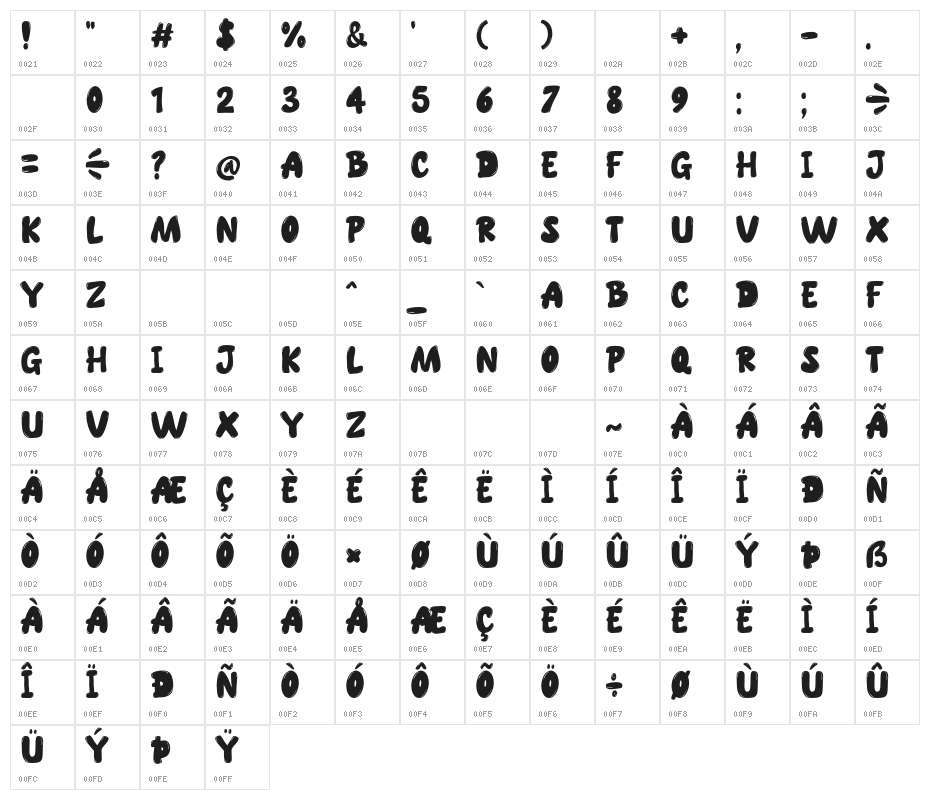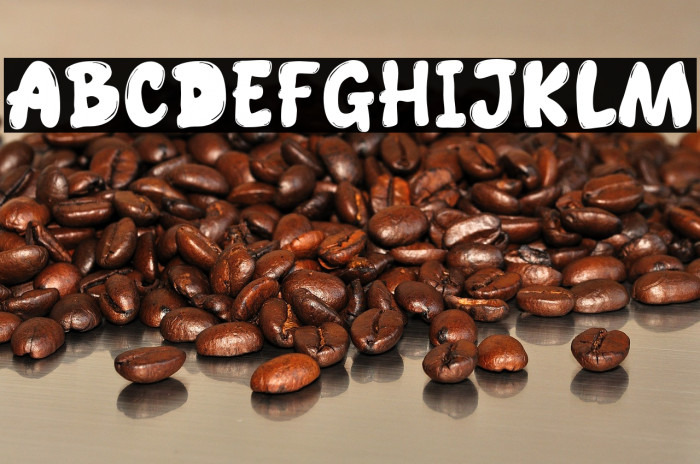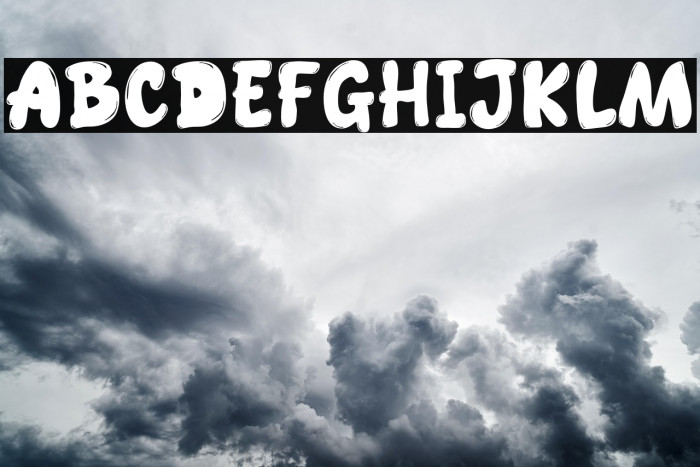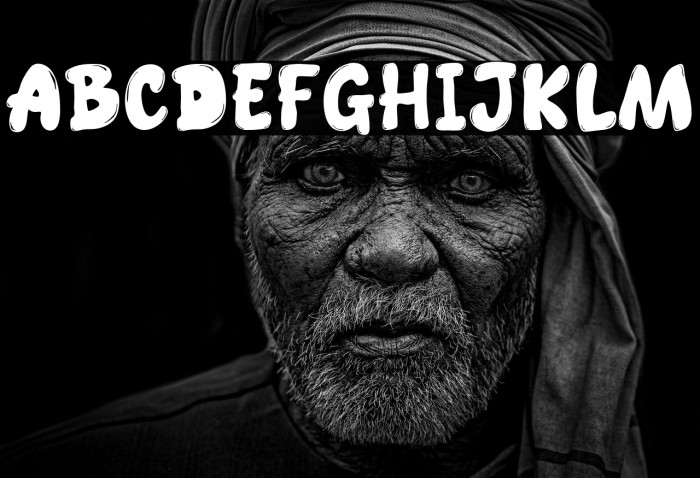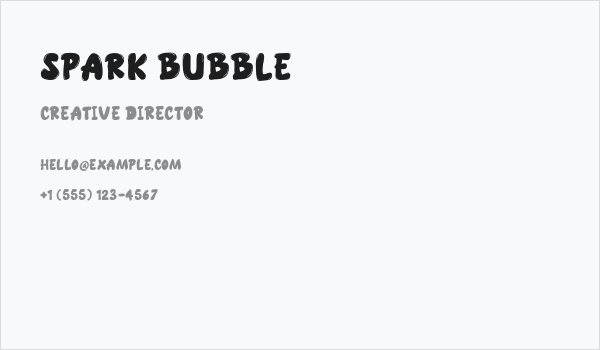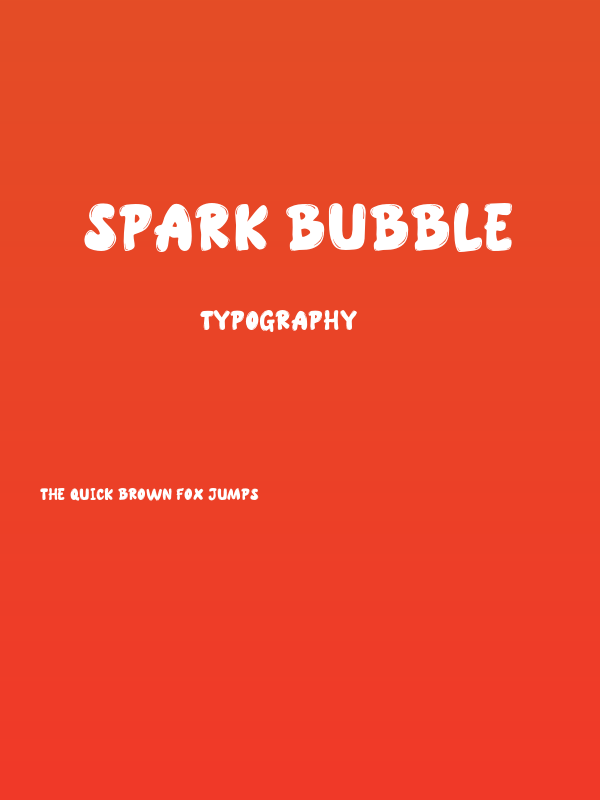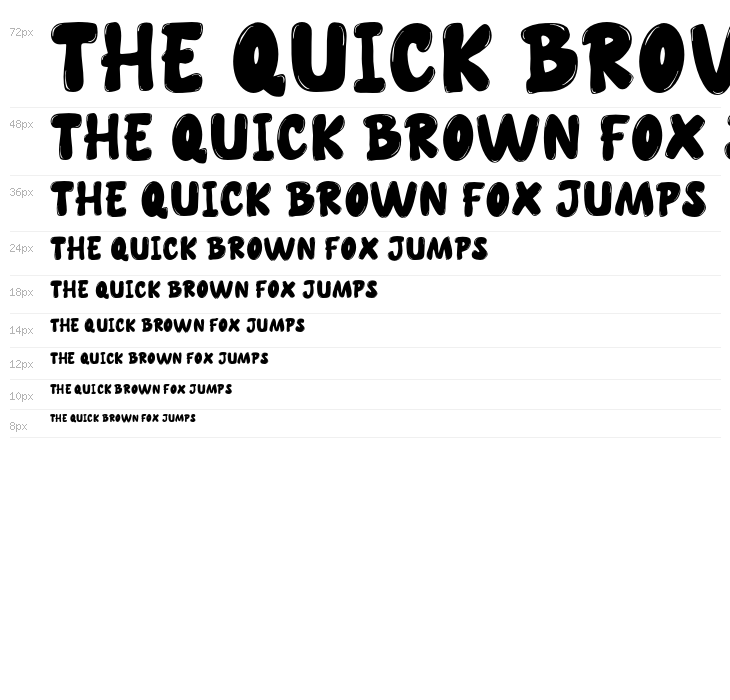
SPARK BUBBLE Font
SPARK BUBBLE Description
This playful and bold font features rounded, bubble-like characters that convey a sense of fun and whimsy. The letters are thick and have a smooth, flowing appearance, making them highly legible while maintaining a unique style. The font includes both uppercase and lowercase letters, as well as numbers and a variety of special characters. Its boldness and rounded edges give it a friendly and approachable feel, perfect for designs that aim to be eye-catching and engaging.
| Overall Style | Playful, Fun |
| Proposed Projects | Ideal for children's books, playful branding, party invitations, and any project that requires a fun and approachable aesthetic. |